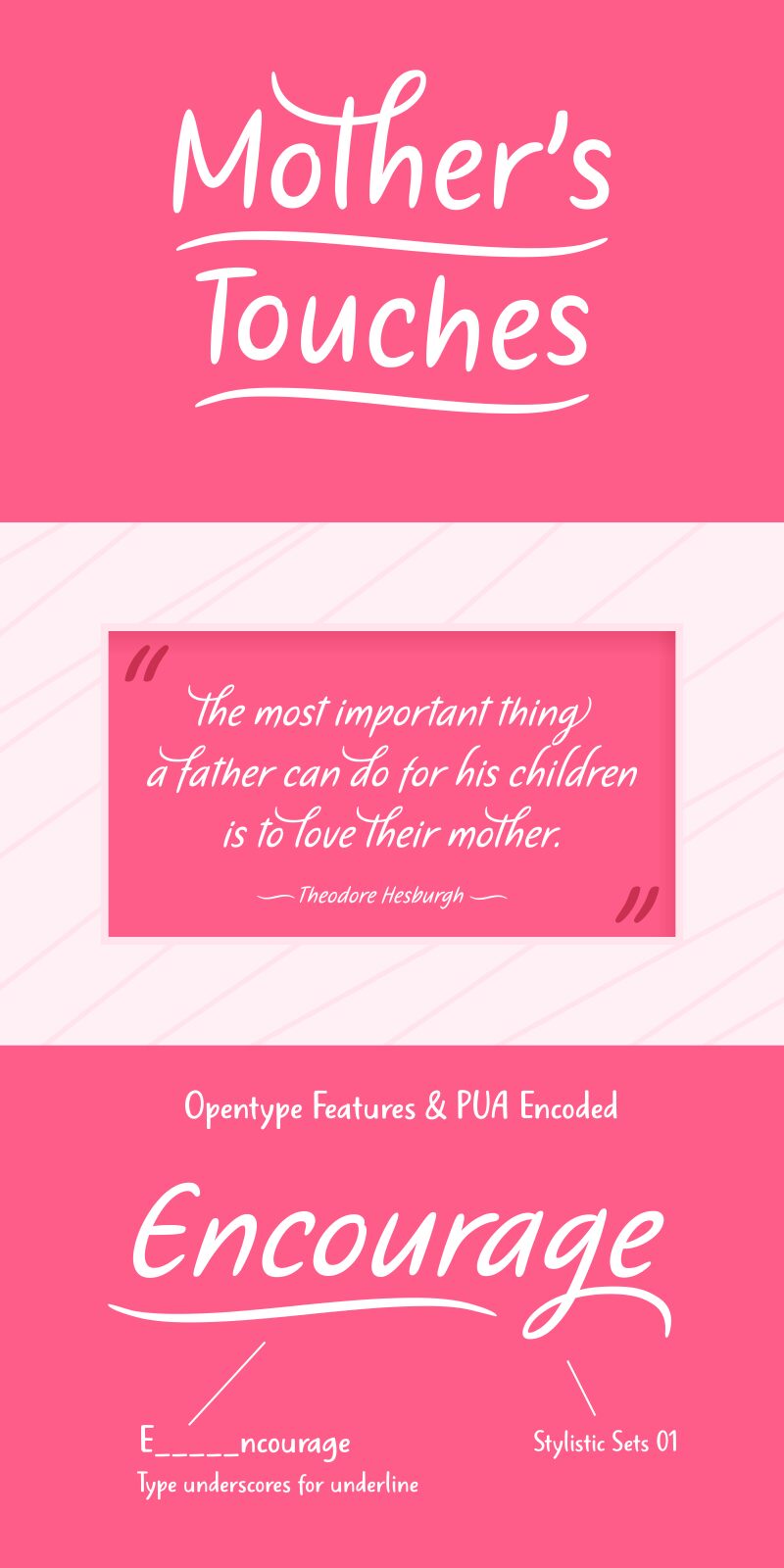
Mother's Touches is a captivating handwritten font that exudes a warm, personal aesthetic. Crafted by designer Situjuh Nazara, this font showcases a delightful blend of fluid strokes and subtle imperfections, evoking a sense of authentic, heartfelt expression.
Its organic, brushstroke-inspired letterforms lend a charming, handcrafted quality that can elevate a wide range of design projects, from greeting cards and stationery to branding and packaging.
The versatility of Mother's Touches makes it an ideal choice for designers seeking to infuse their work with a touch of genuine, heartfelt character.